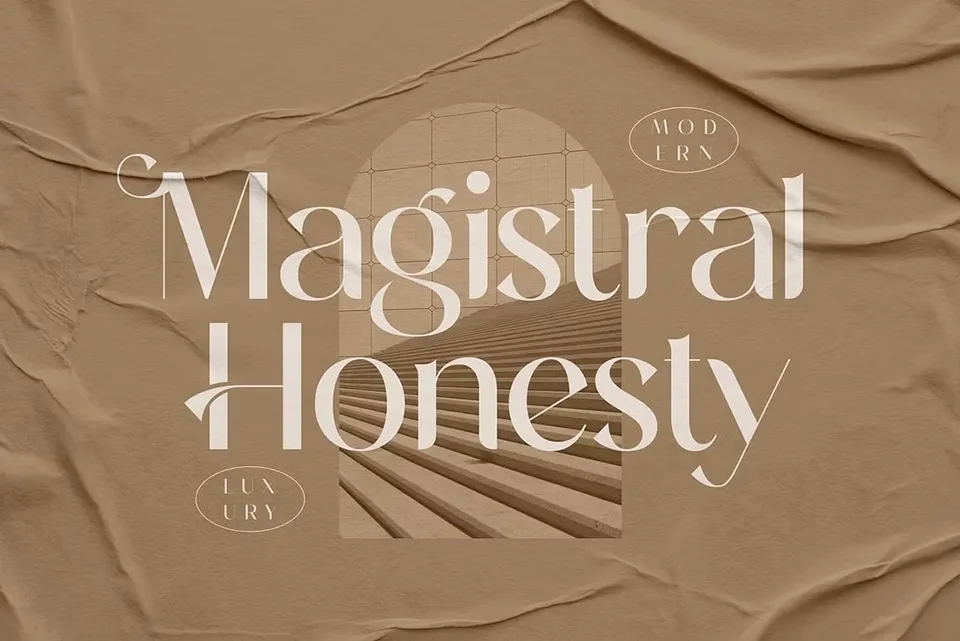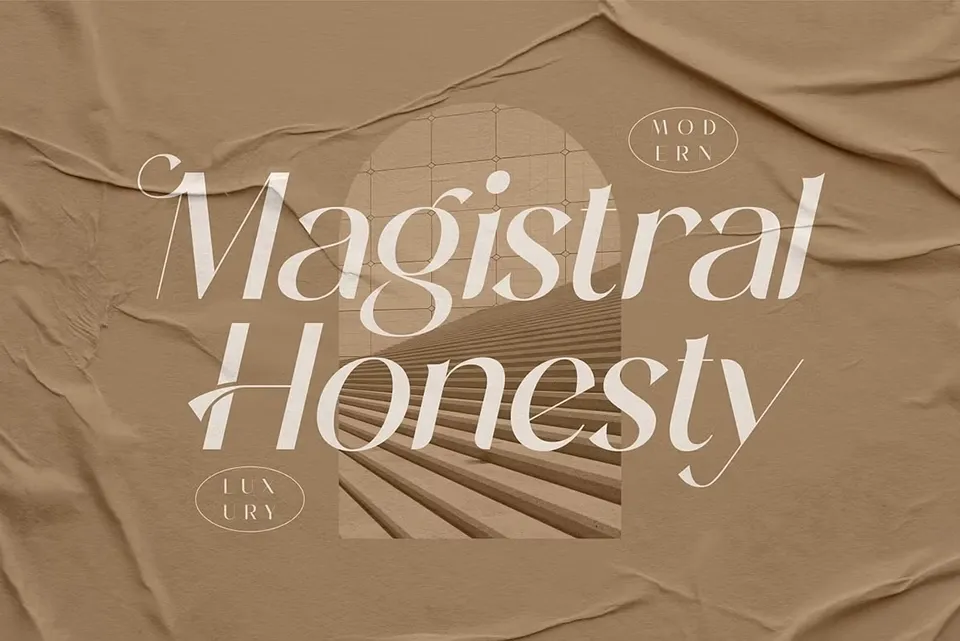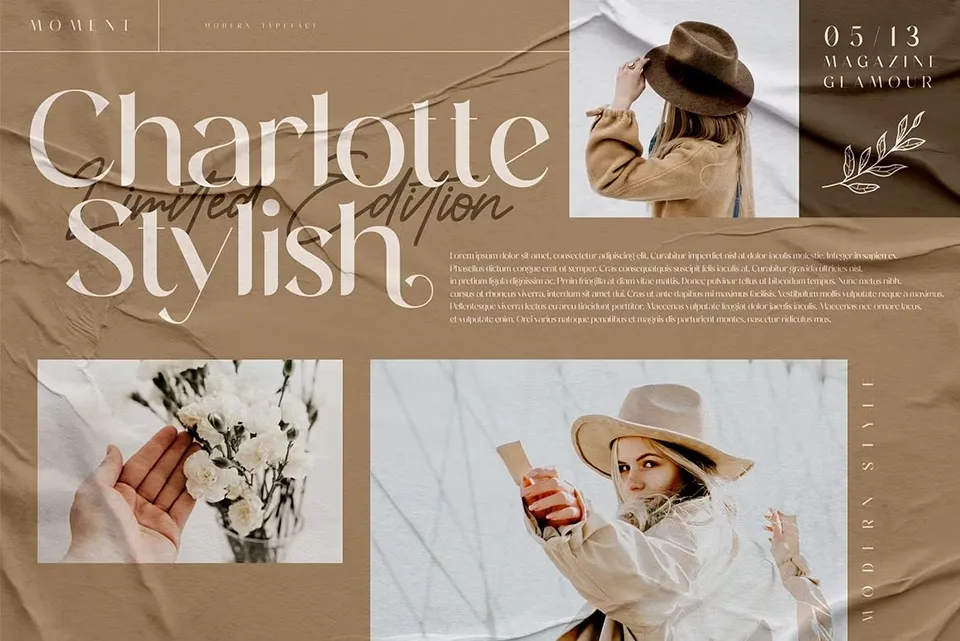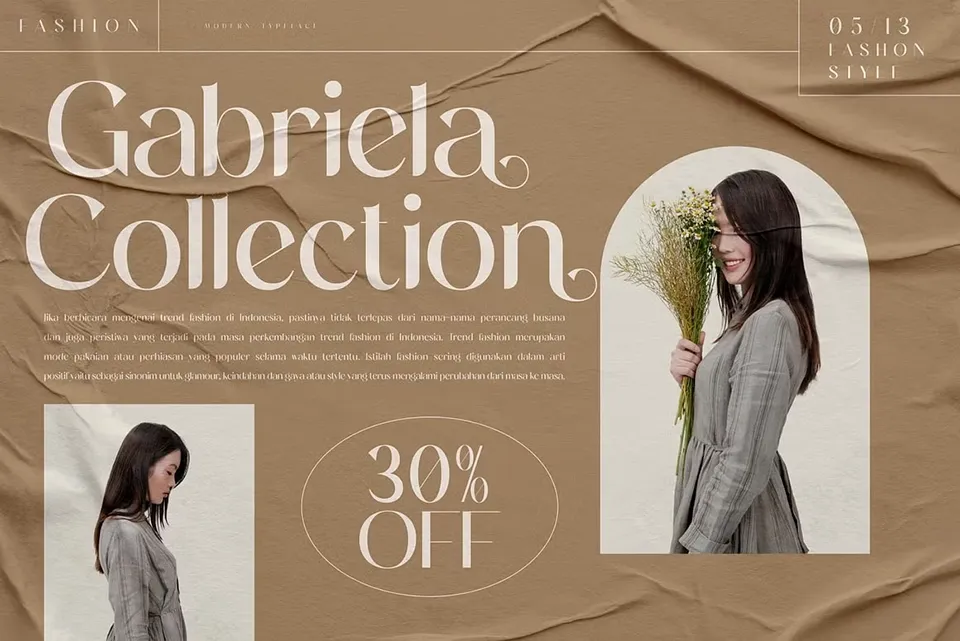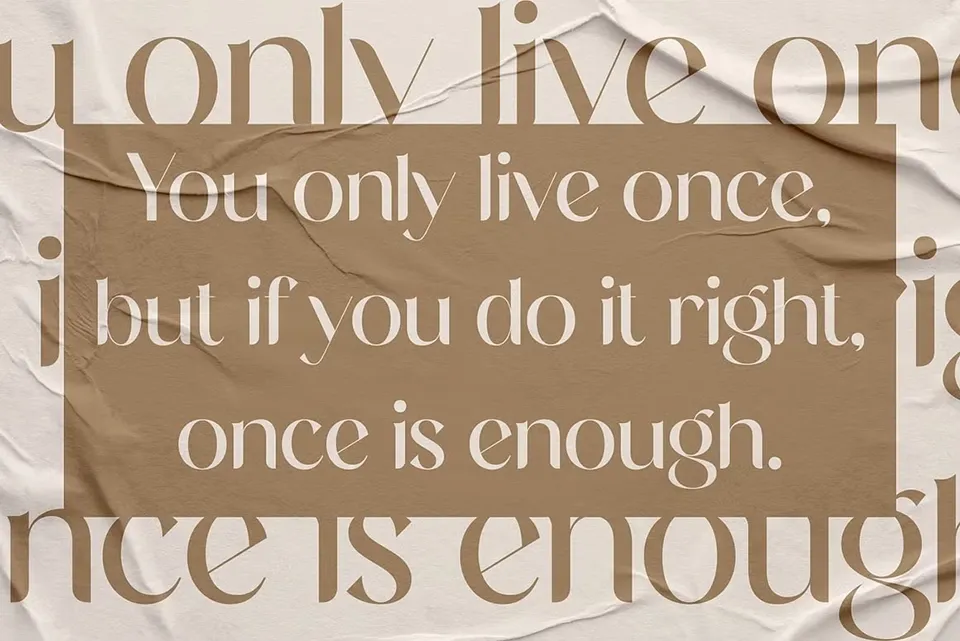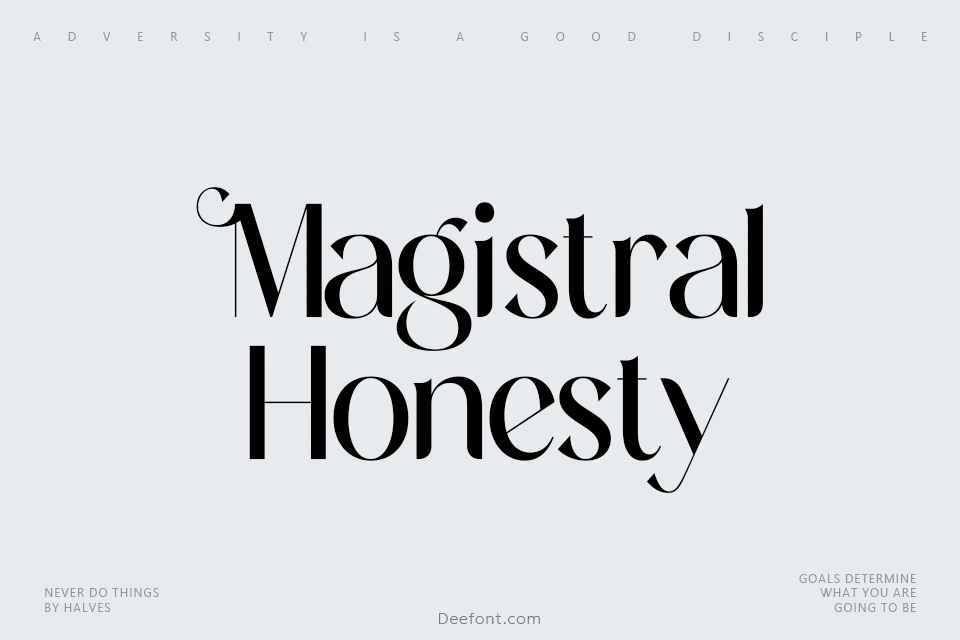
Magistral Honesty Font
Magistral Honesty Font is a modern and classic serif typeface with a unique style and luxurious look. Perfect for elegant logos, book or movie titles, fashion branding, magazines, clothing, lettering, and quotes, this font brings sophistication and versatility to any creative project. It features rich ligatures, alternate characters, and multilingual support, making it ideal for designers seeking both beauty and functionality in their typography.